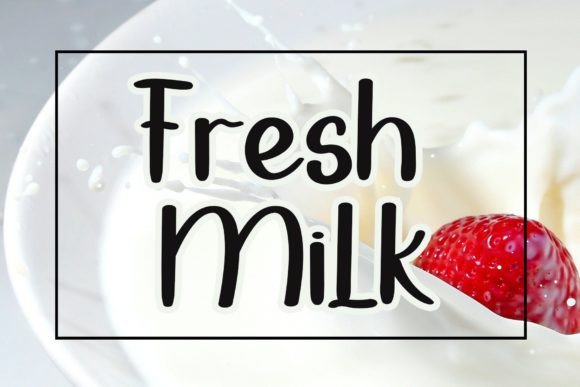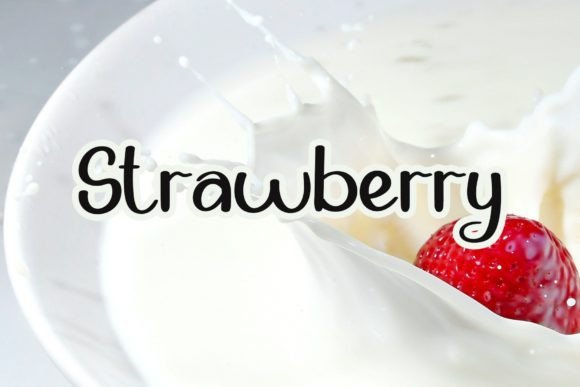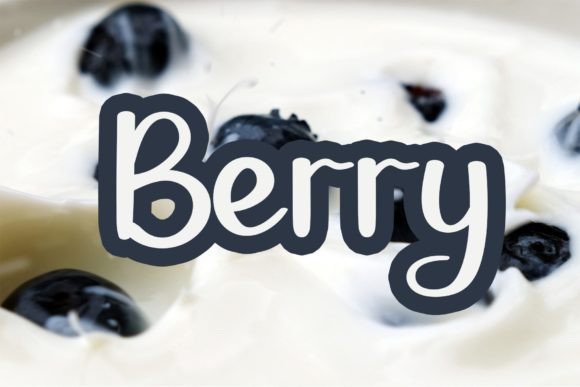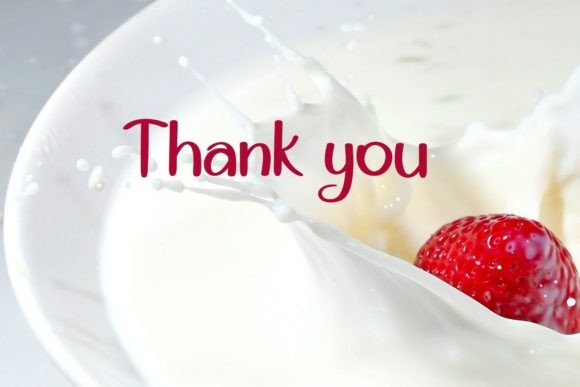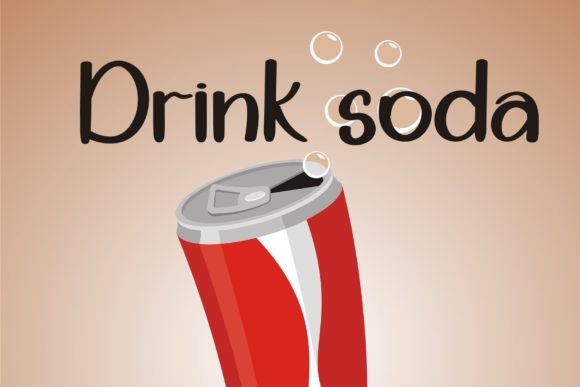
Fresh Milk Font
About Fresh Milk Font
“Fresh Milk: Where Sweetness Meets Luxury in Handwritten Elegance
Introducing Fresh Milk, a sweet and beautiful handwritten font that adds a touch of luxury and elegance to your design projects. With characters that dance along the baseline, this font brings a sense of movement and sophistication to any creative endeavor you wish to undertake. Its unique charm and graceful strokes make Fresh Milk the perfect choice for projects where sweetness meets luxury, transforming your designs into visual masterpieces that captivate and inspire.
The allure of Fresh Milk lies in its sweetness and beauty, where each character is meticulously crafted to evoke a sense of luxury and refinement. The characters dance along the baseline with graceful movements, creating a visual rhythm that is both captivating and enchanting. Imagine your wedding invitations adorned with Fresh Milk’s elegant script, setting the stage for a romantic and luxurious celebration. Picture your branding materials featuring its sweet and beautiful letterforms, leaving a lasting impression on your audience. With Fresh Milk, your designs come to life with a touch of opulence, making them visually striking and unforgettable.
One of Fresh Milk’s standout features is its ability to add a luxury spark to any design project. Its handwritten elegance elevates your creations, transforming them into works of art that exude sophistication. Whether you’re designing logos, crafting packaging, creating high-end invitations, or working on any project that demands a luxurious touch, Fresh Milk adds a sense of grandeur and style, making your designs stand out with a luxurious aura.
Moreover, Fresh Milk is more than just a font; it’s an embodiment of elegance and sophistication. Its sweet and beautiful demeanor resonates with individuals who appreciate the art of handwritten typography, making it a favorite among designers and enthusiasts seeking a font that exudes charm and luxury. Its presence adds a layer of depth and character to your designs, making them visually captivating and unforgettable.
In a world where first impressions matter, Fresh Milk helps you make a statement. It speaks the language of sweetness and luxury, resonating with those who appreciate the beauty of handwritten artistry. Whether you’re designing for weddings, high-end brands, or any other special occasion, Fresh Milk becomes your trusted ally, guiding you toward design excellence.
So, why settle for ordinary when you can embrace the extraordinary with Fresh Milk? Let this sweet and beautiful handwritten font be the muse for your creative expressions, and watch as your projects come to life with elegance, luxury, and timeless beauty. Let your creativity flow, and let Fresh Milk be the brushstroke that paints your ideas into visually captivating masterpieces, leaving a lasting impression on the world.”